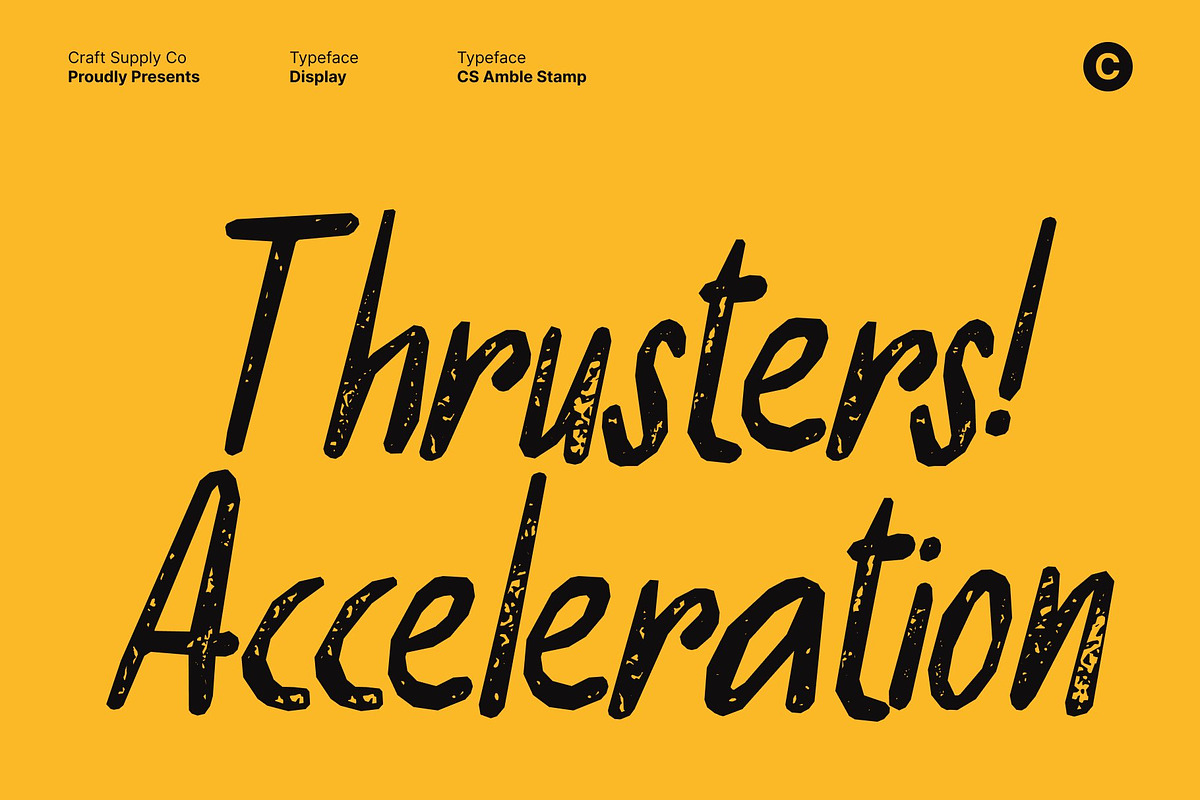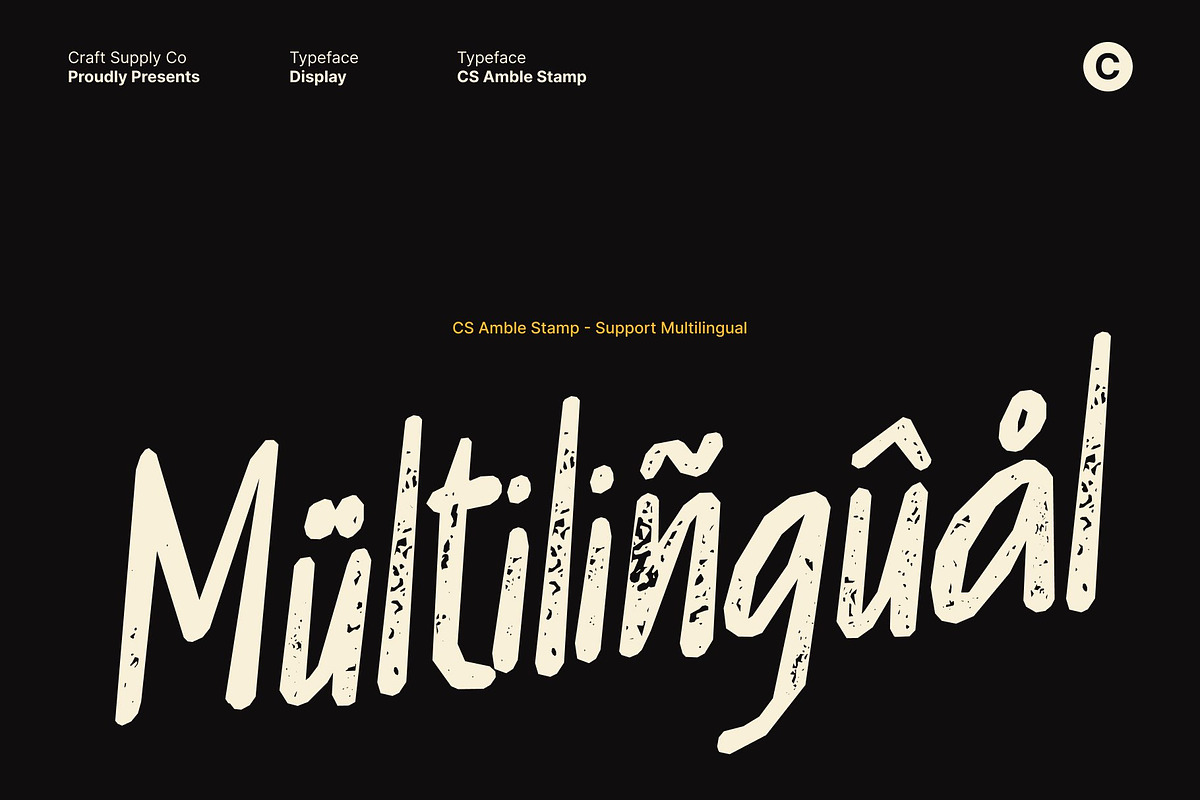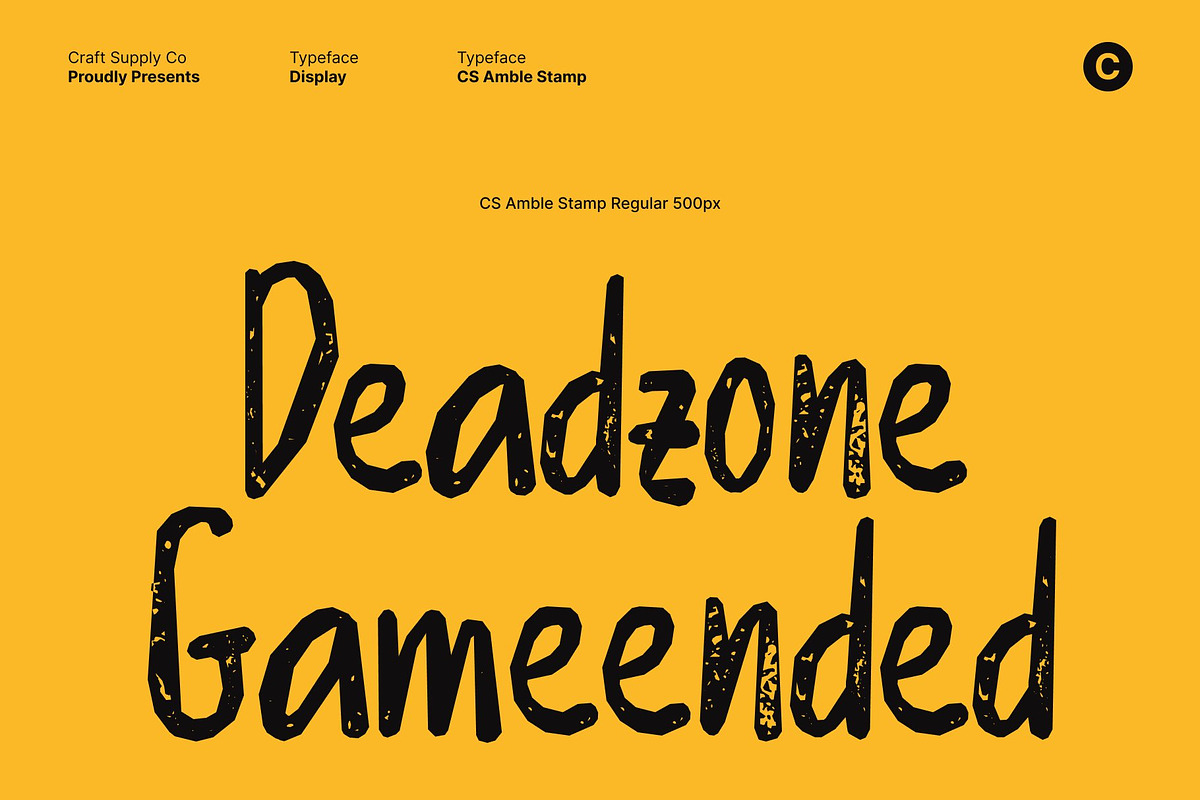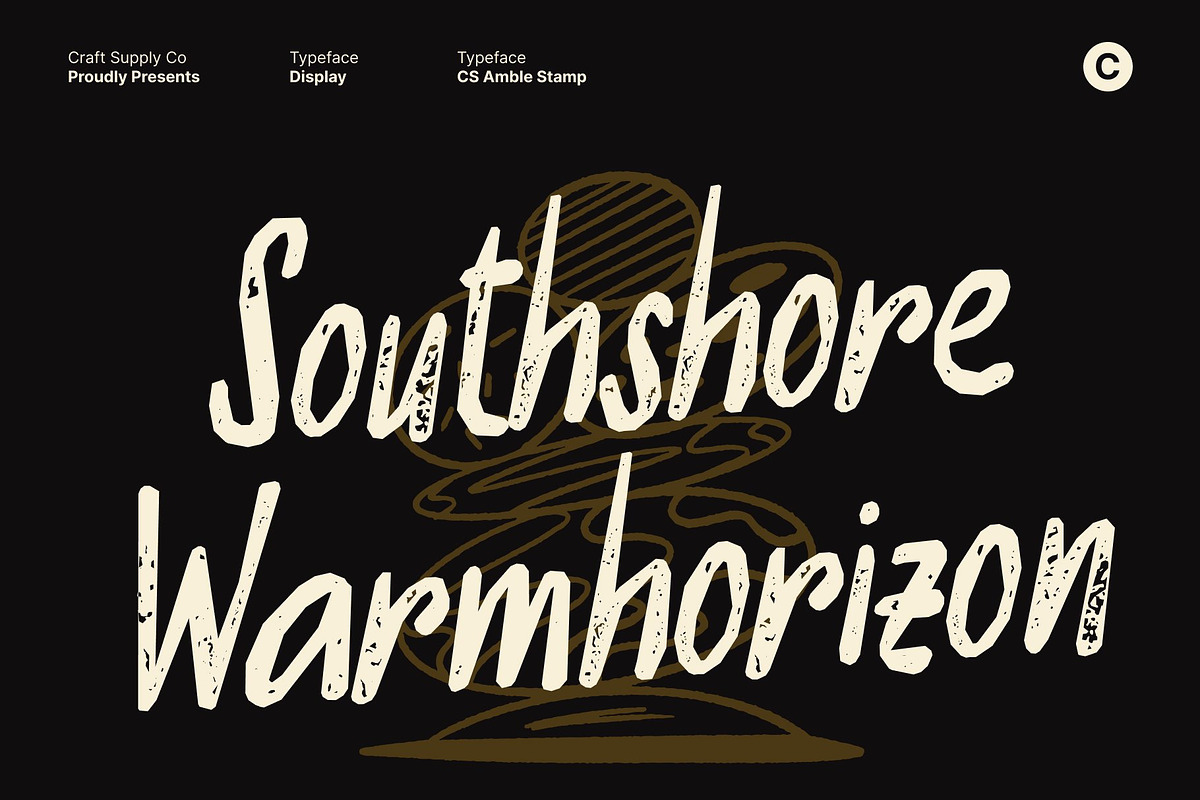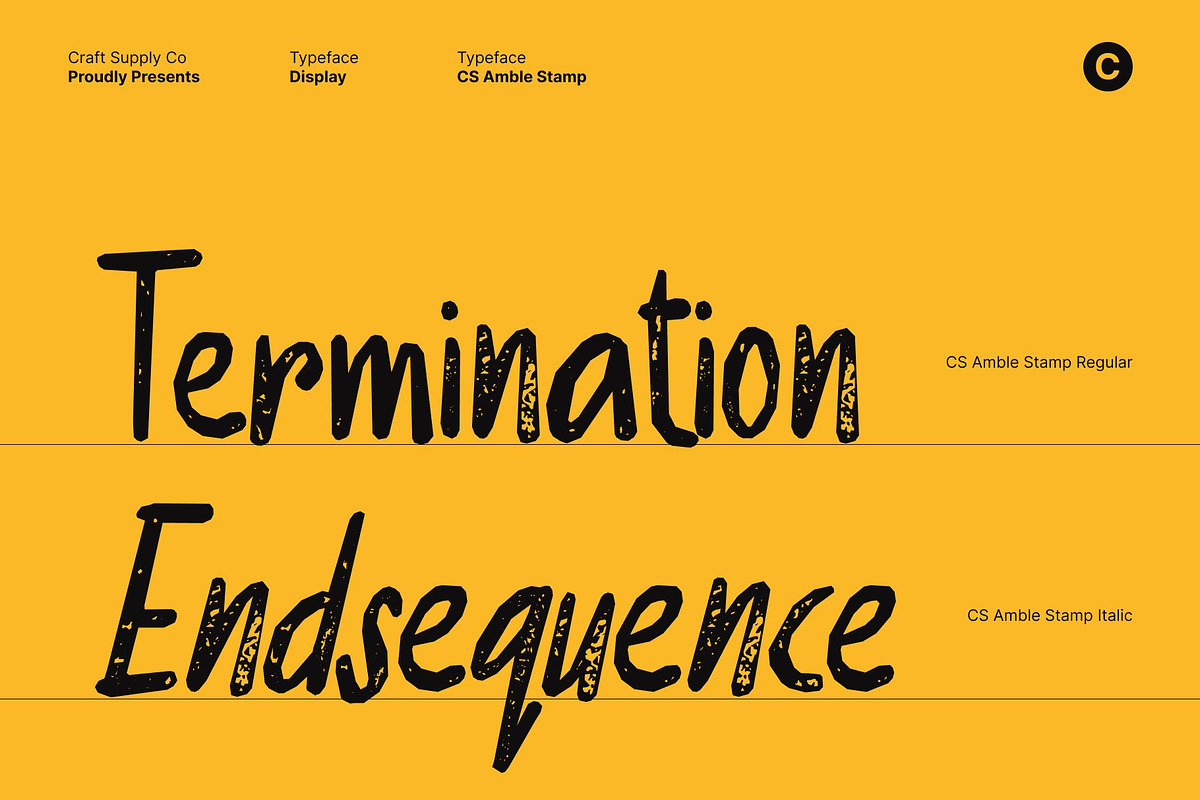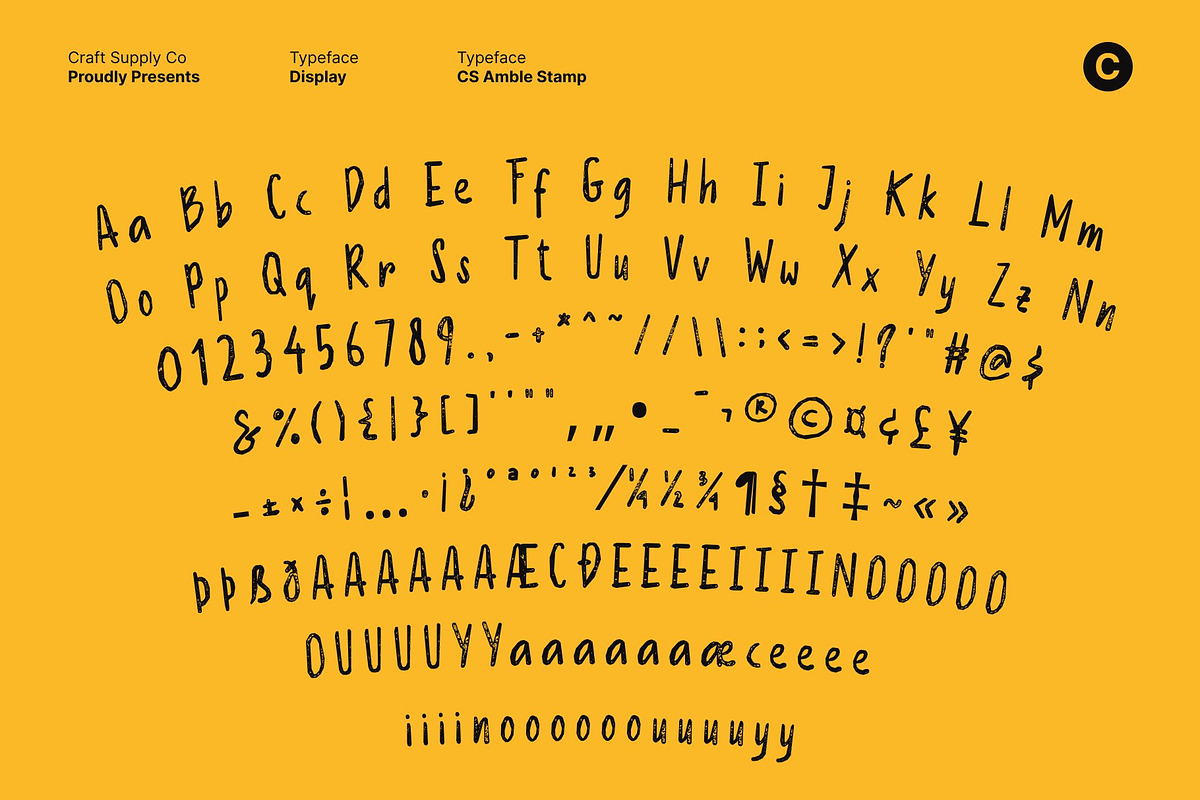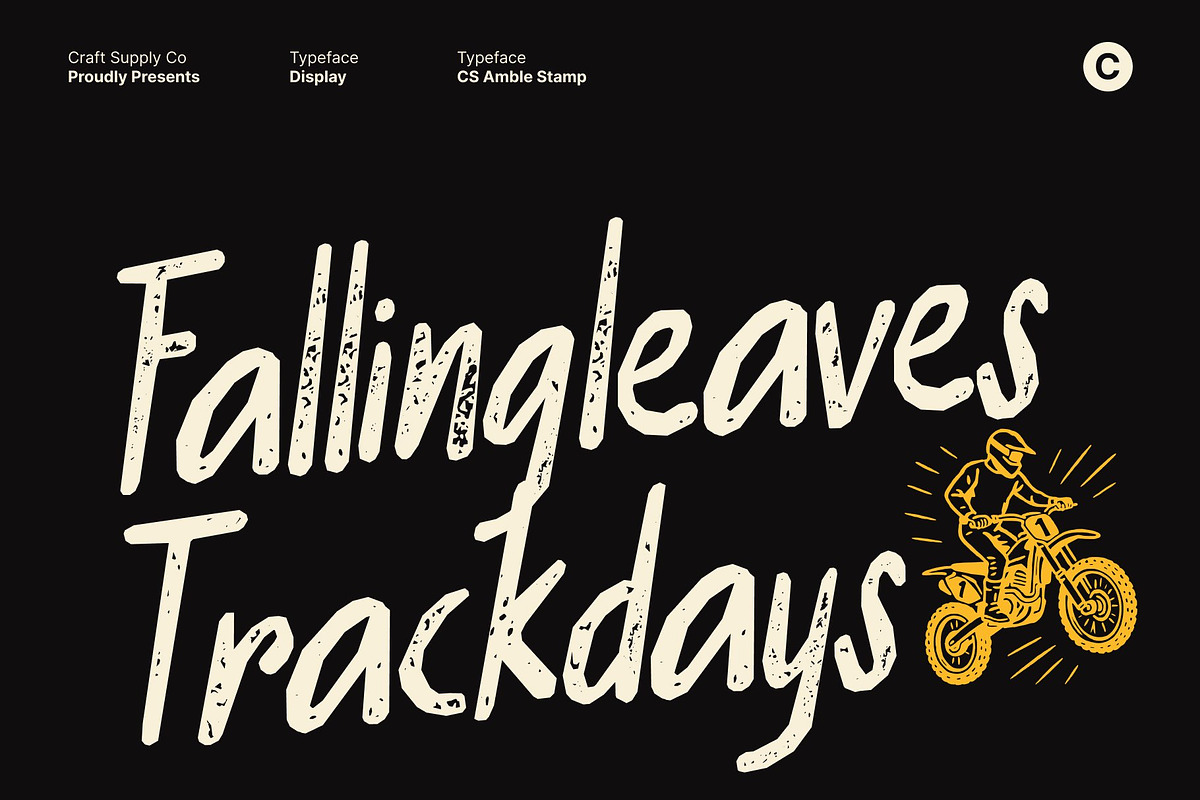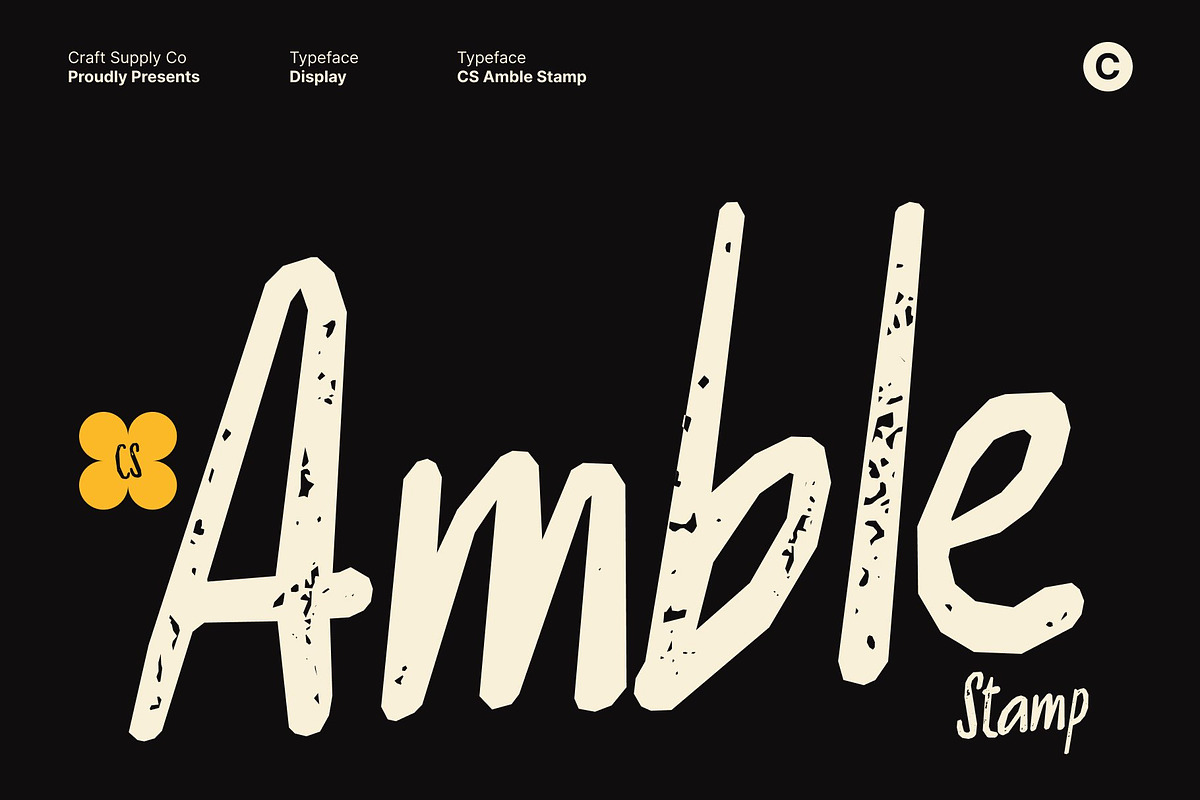
CS Amble Stamp
CS Amble Stamp – Soft Beauty with a Handwritten Heart
Beauty Handwritten Font with a Gentle Stamp Touch This is a charming and approachable beauty handwritten font that radiates warmth, sincerity, and human connection. Its soft, flowing strokes are paired with a subtle stamped texture, giving each letter a handcrafted feel that looks natural and authentic. The result is a typeface that feels personal, friendly, and effortlessly stylish.
Blending Handwritten Grace with Sans Serif Clarity What makes this font unique is its harmonious balance between expressive handwritten lines and the clean readability of sans serif forms. The stamped effect adds character and tactility without sacrificing clarity, allowing the font to remain legible and polished in both short phrases and longer text. It feels organic yet thoughtfully structured.
Soft Vibe for Calm and Friendly Design With gentle curves, light rhythm, and a slightly imperfect stamp finish, this font brings a soothing and approachable vibe to any design. It evokes comfort, care, and creativity like a handwritten note pressed onto paper. Each character feels warm and inviting, making your message feel sincere and heartfelt.
Perfect for Branding and Everyday Elegance Ideal for branding, posters, postcards, packaging, stationery, quotes, and lifestyle visuals, delivers everyday elegance with a personal touch. Its soft personality and versatile appeal make it a reliable choice for designers seeking friendliness, clarity, and charm whether for personal projects or professional identities.
CS Amble Stamp Regular
CS Amble Stamp Italic